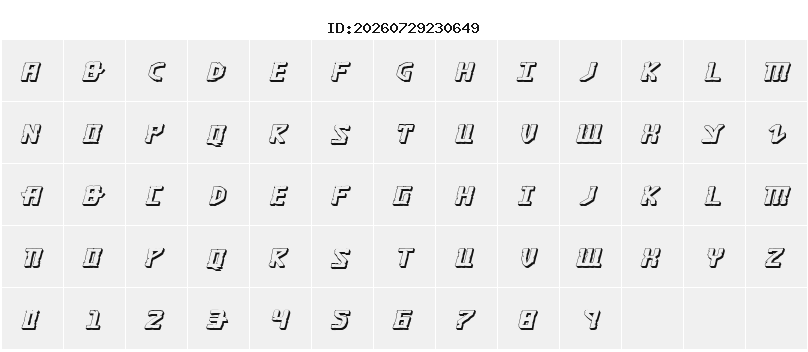
Khazad-Dum 3D Expanded Italic Preview
• Font Name: Khazad-Dum 3D Expanded Italic
• Font Style: Expanded Italic
• Full Font Name: Khazad-Dum 3D Expanded Italic
About Khazad-Dum 3D Expanded Italic.ttf
Khazad-Dum 3D Expanded Italic.ttf is a modern, elegant sans-serif font designed for ultimate readability and visual harmony. Perfect for branding, headlines, web design, and print materials.